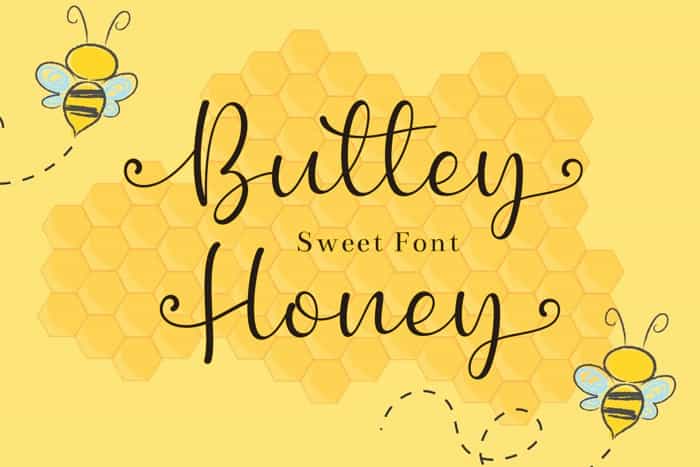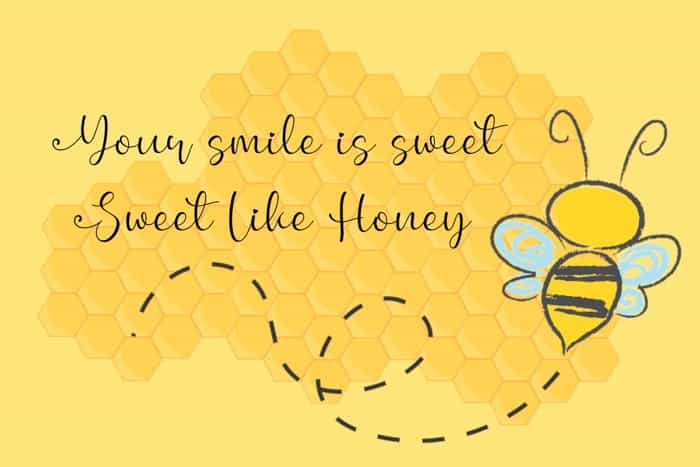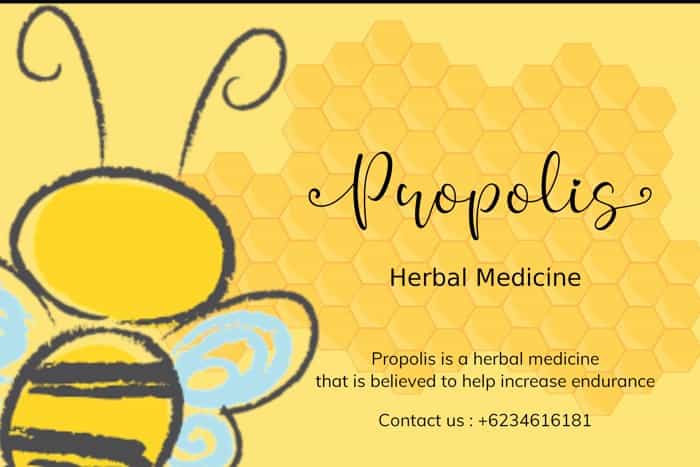
Buttey Honey Font is a luxury, classy and charming calligraphy font. The font is full of the characteristics and features as well as it has a lot of alternate characters and opentype. The font is designed to be used in combination that it can work together very well for wedding media, book covers, greeting cards, logos, branding and business cards even certificates.